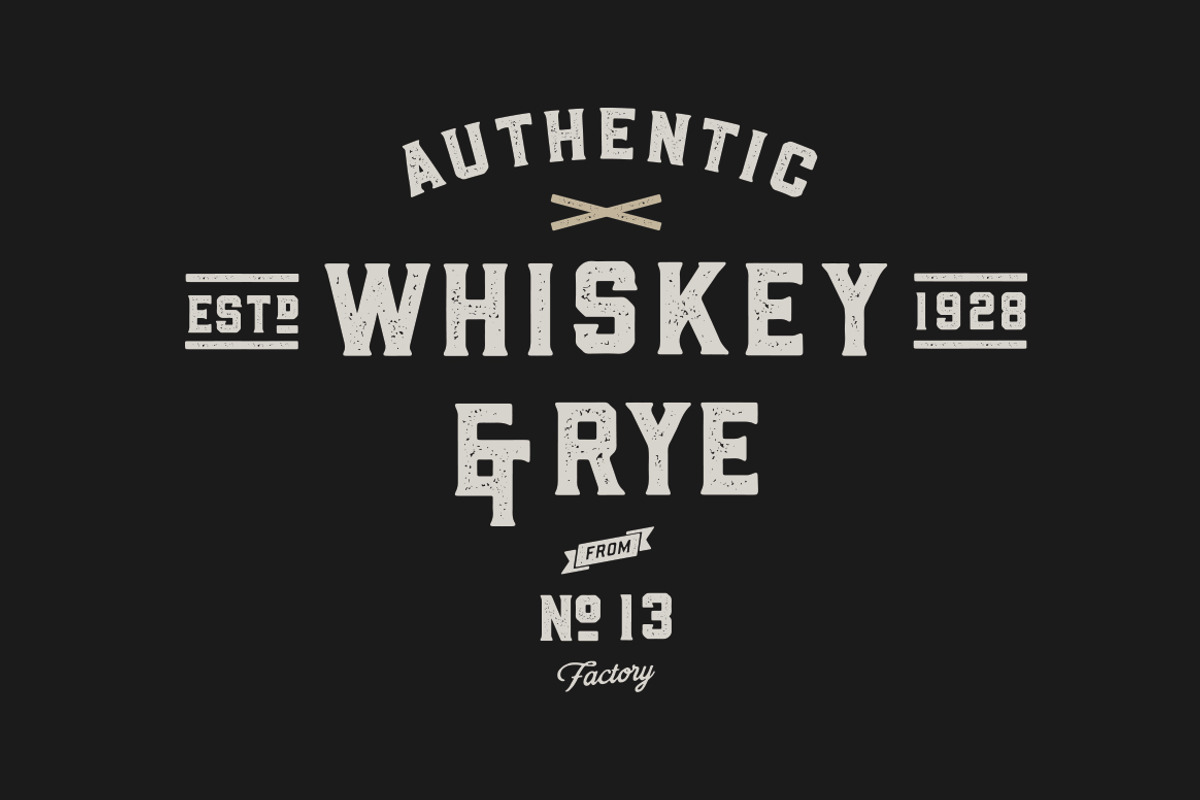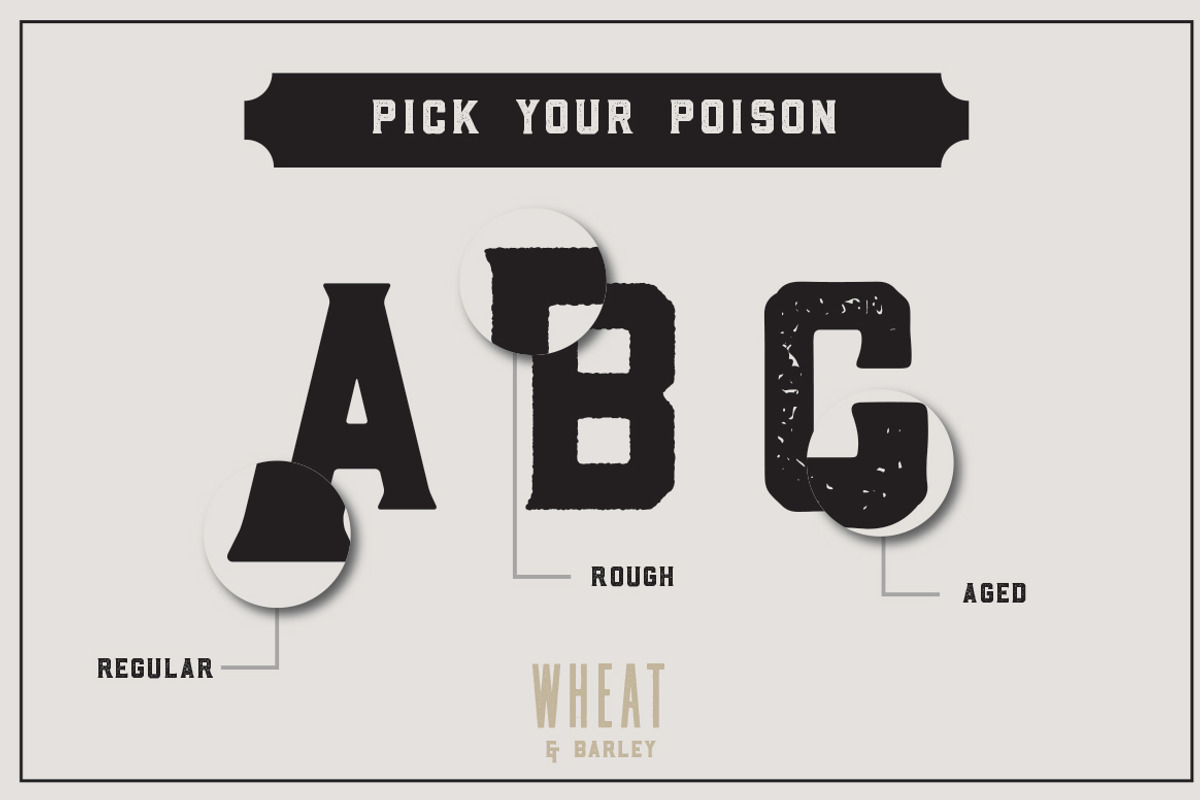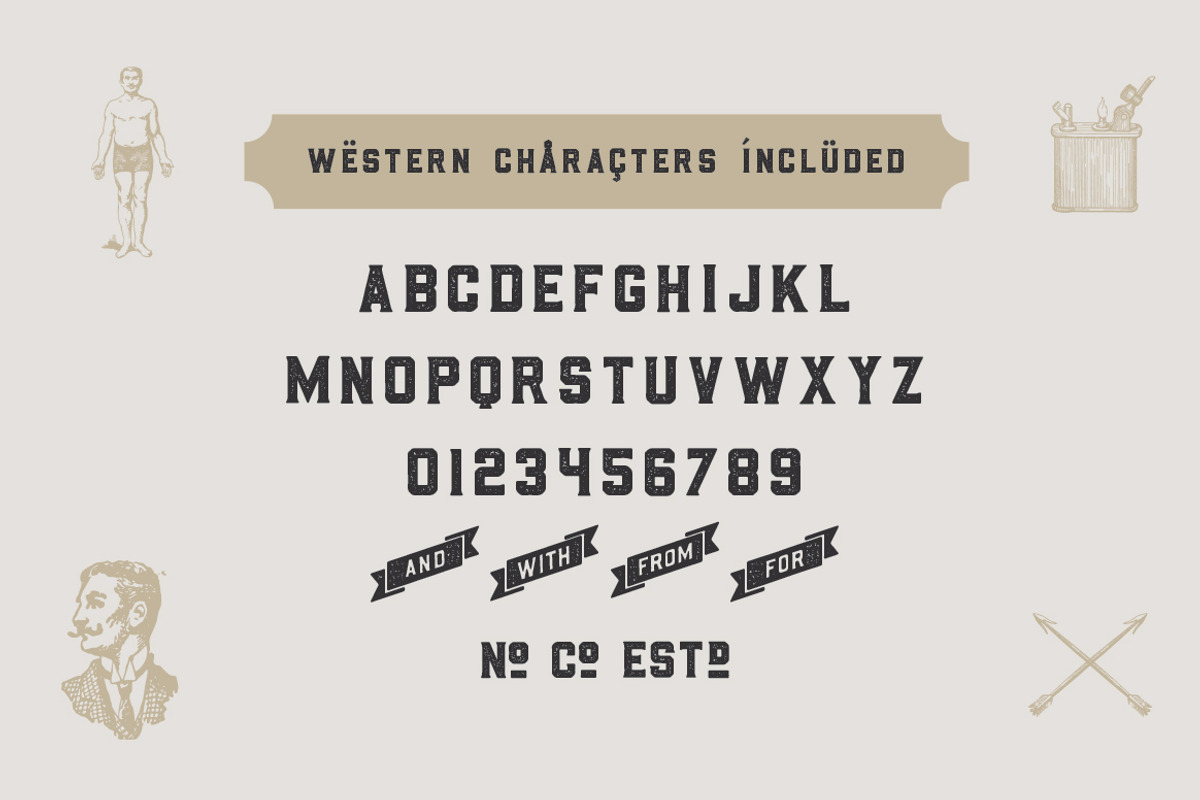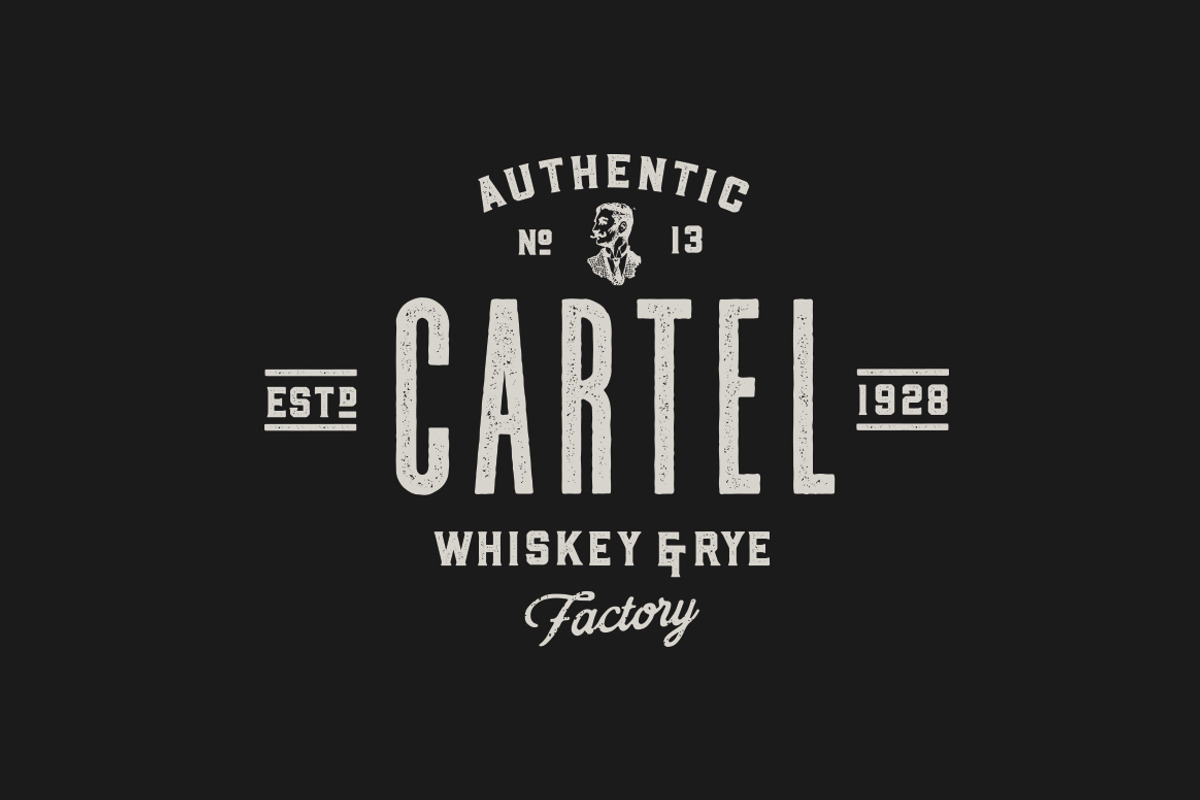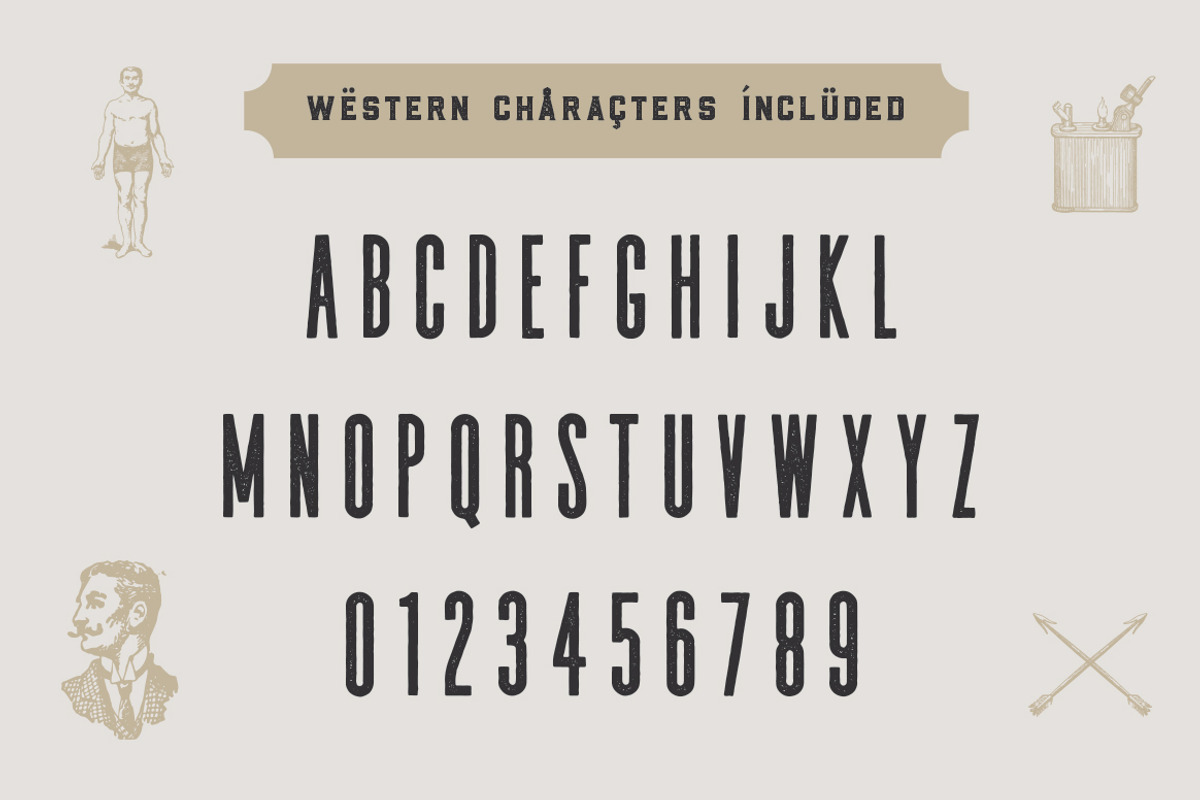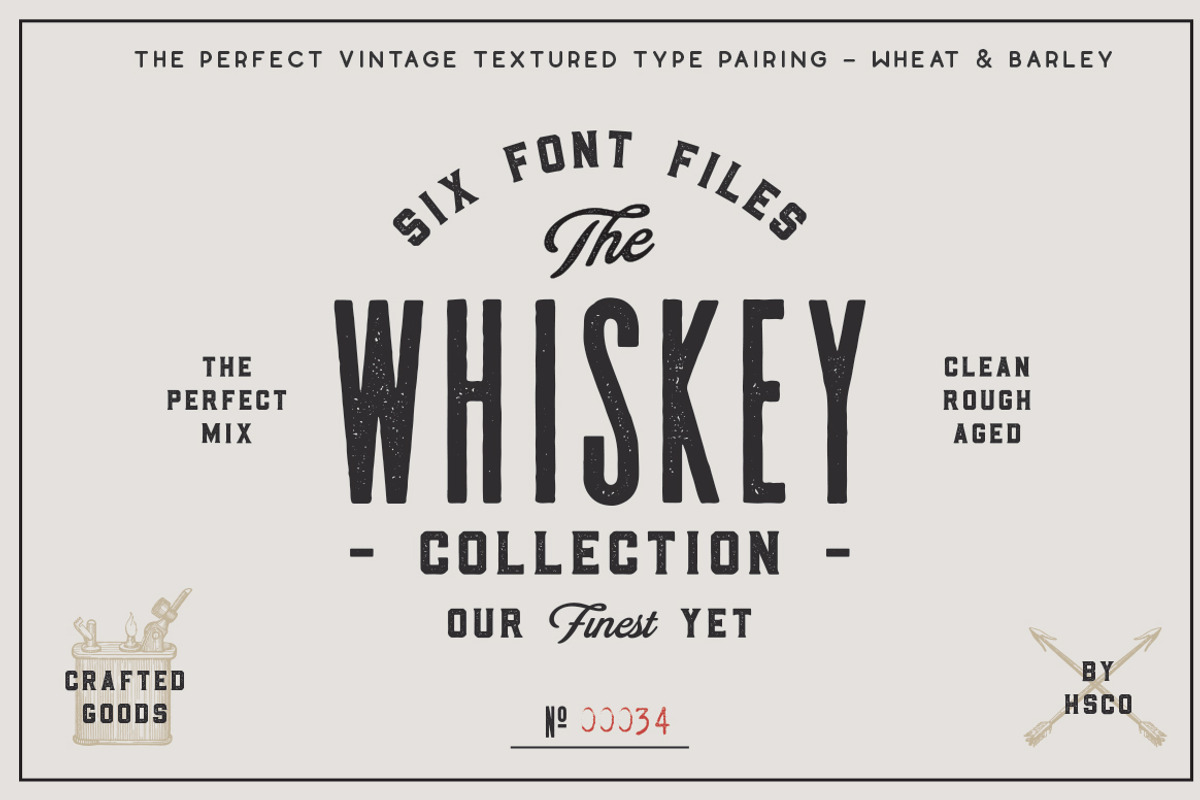
The Whiskey Font Collection
The Whiskey Font Collection by Hustle Supply Co. is a font selected for branding, posters, packaging, typography.
- Wheat & Barley come with Western European characters.
Why The Whiskey Font Collection is worth a look
The Whiskey Font Collection by Hustle Supply Co. fits naturally into Branding, posters, packaging, typography.